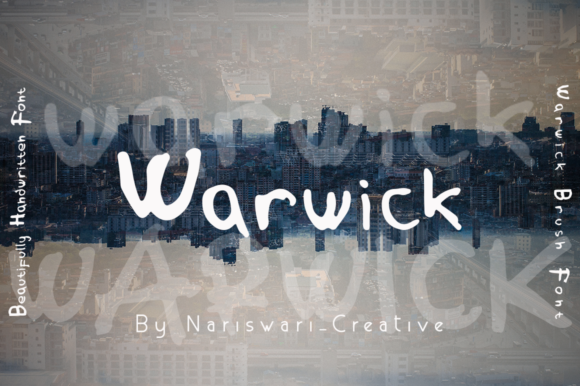
Welcome to the world of Warwick Font, an enchanting decorative font family that will ignite your creativity and leave a lasting impression on your readers. Warwick, meticulously crafted by the talented Nariswari Creative, is designed to be a visual masterpiece, capturing the essence of elegance and sophistication. With its timeless beauty, Warwick is the perfect choice for book interiors, adding an air of refinement to your literary creations.
Immerse yourself in the captivating world of Warwick Font, where words dance with grace and style. This extraordinary font family transports you to a realm of endless possibilities, allowing you to express your thoughts and ideas with unparalleled elegance. Warwick's versatility knows no bounds, seamlessly adapting to any background, whether it be a vibrant tapestry of colors or a simplistic, minimalist canvas.
Envision your book's interior adorned with the exquisite charm of Warwick Font. Each letter, delicately rendered with precision and artistry, invites your readers on a journey of literary exploration. Warwick's timeless design ensures that your words will resonate with readers, leaving an enduring impact that transcends time.
With Warwick Font, you hold the power to transform ordinary text into an extraordinary symphony of visual delight. Its innate ability to command attention and evoke emotions makes it the perfect choice for authors seeking to captivate their audience and leave a lasting impression. Unleash your creativity and let Warwick's allure work its magic, transforming your book into an unforgettable masterpiece.